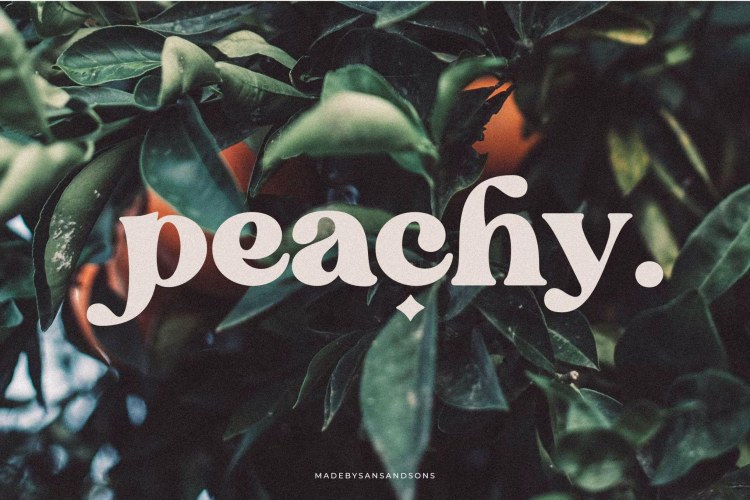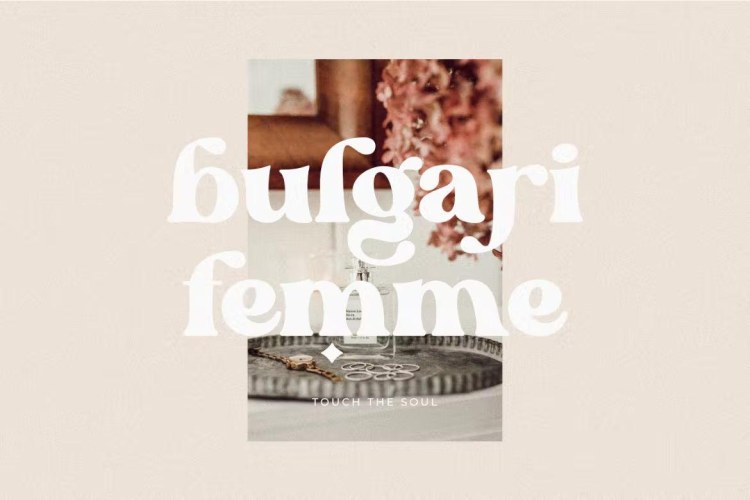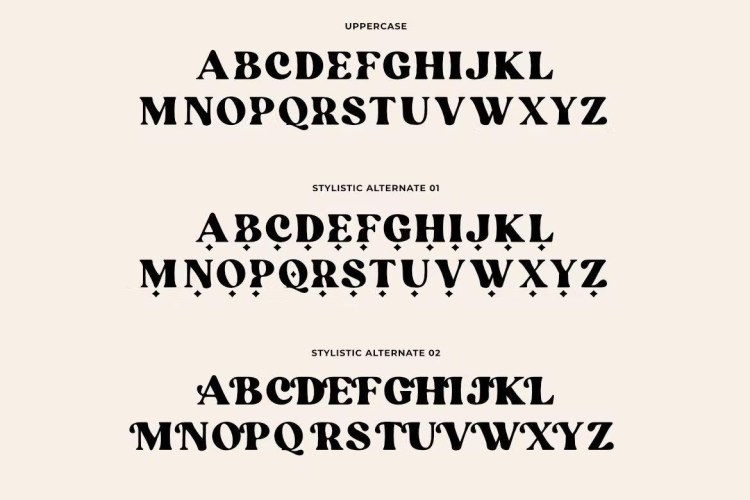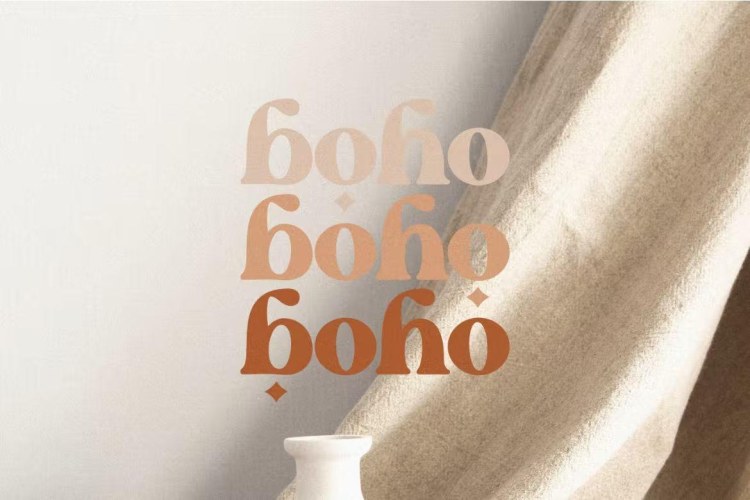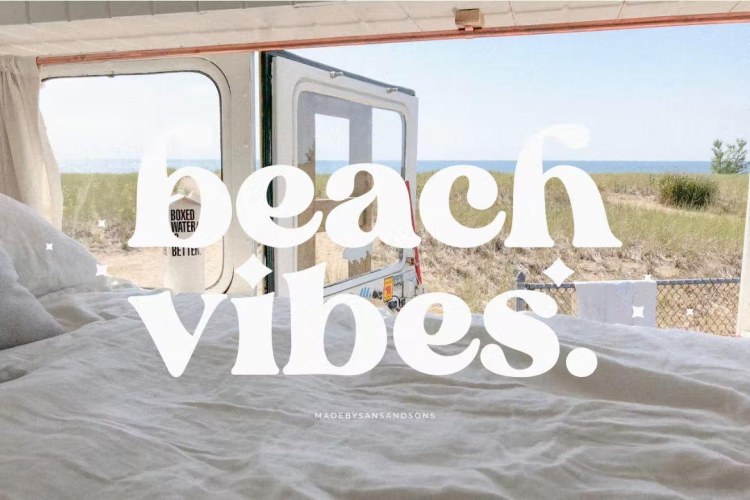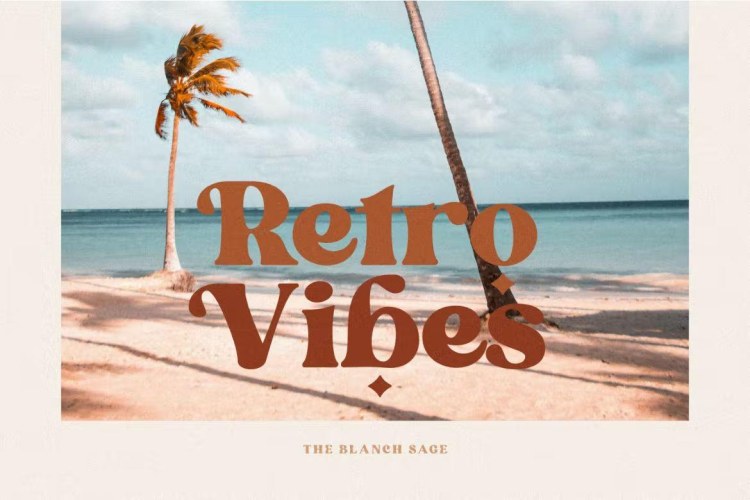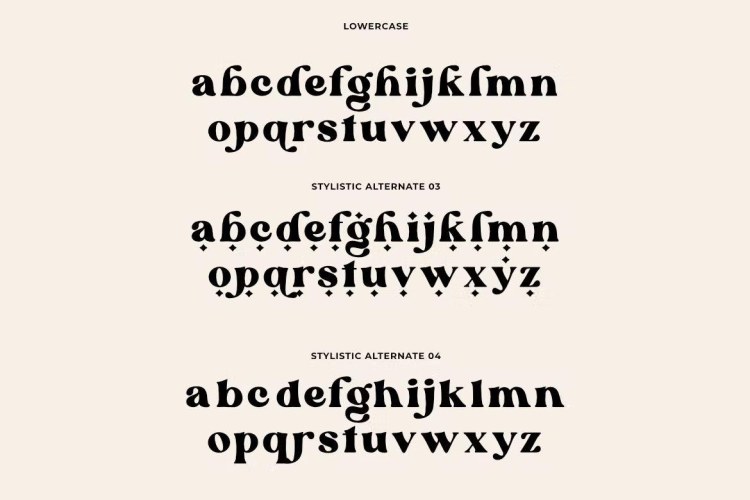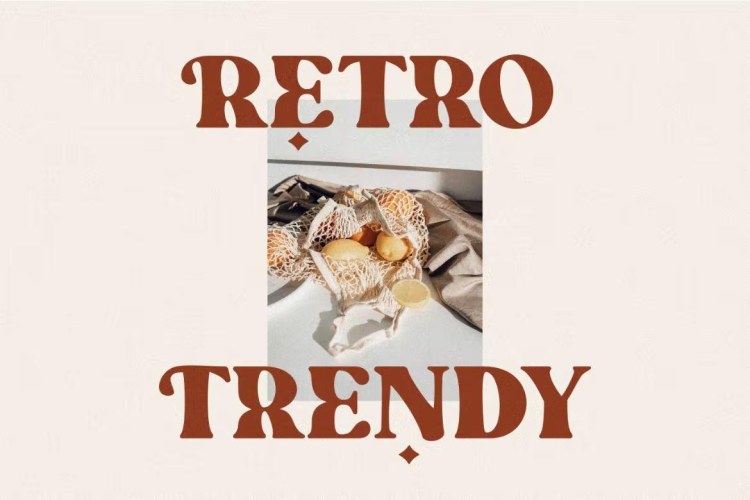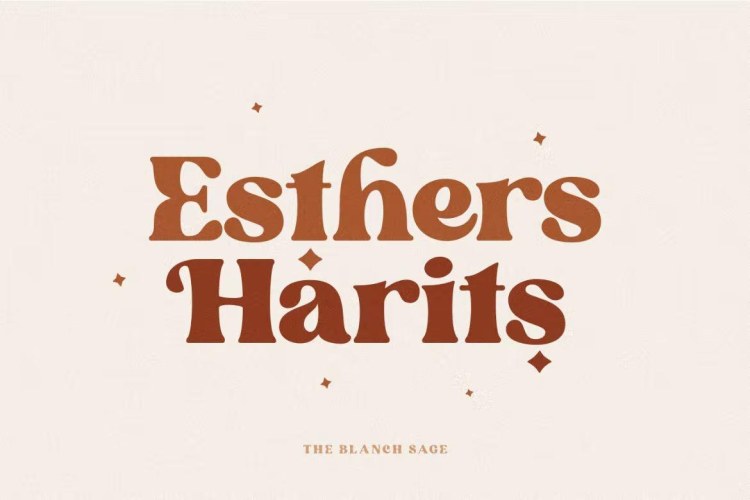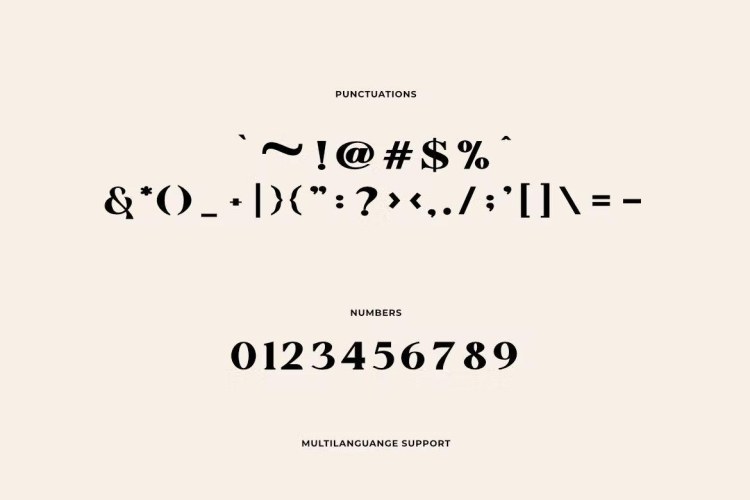
Blanch Sage Font
Blanch Sage is a vintage modern typeface by Sans & Sons that has an exciting way to have fun and be elegant at the same time. Whether for business promotion, logos, invitations, mastheads and so many others, Blanch Sage gives out a unique element to all your designs.
There is an interesting combination of the modern and the retro here, so this font would work for most purposes . Its elegant but fun characters fit any text and its versatility means it can be used in business and on personal images, making your work more visually stimulating.
Alternates
Ligatures
Where Blanch Sage Font works best
Blanch Sage Font gives long-form text a classic, trustworthy rhythm — ideal for magazine spreads, annual reports and book interiors.
Pair Blanch Sage Font with generous letter-spacing for wordmarks in fashion, hospitality, wine and jewellery branding.
What is Blanch Sage Font good for?
Blanch Sage Font is a Serif Fonts typeface tagged Branding, Elegant, Modern, Retro. It works well for headlines, logos, posters, social media graphics and branding projects that need a distinctive serif fonts look.